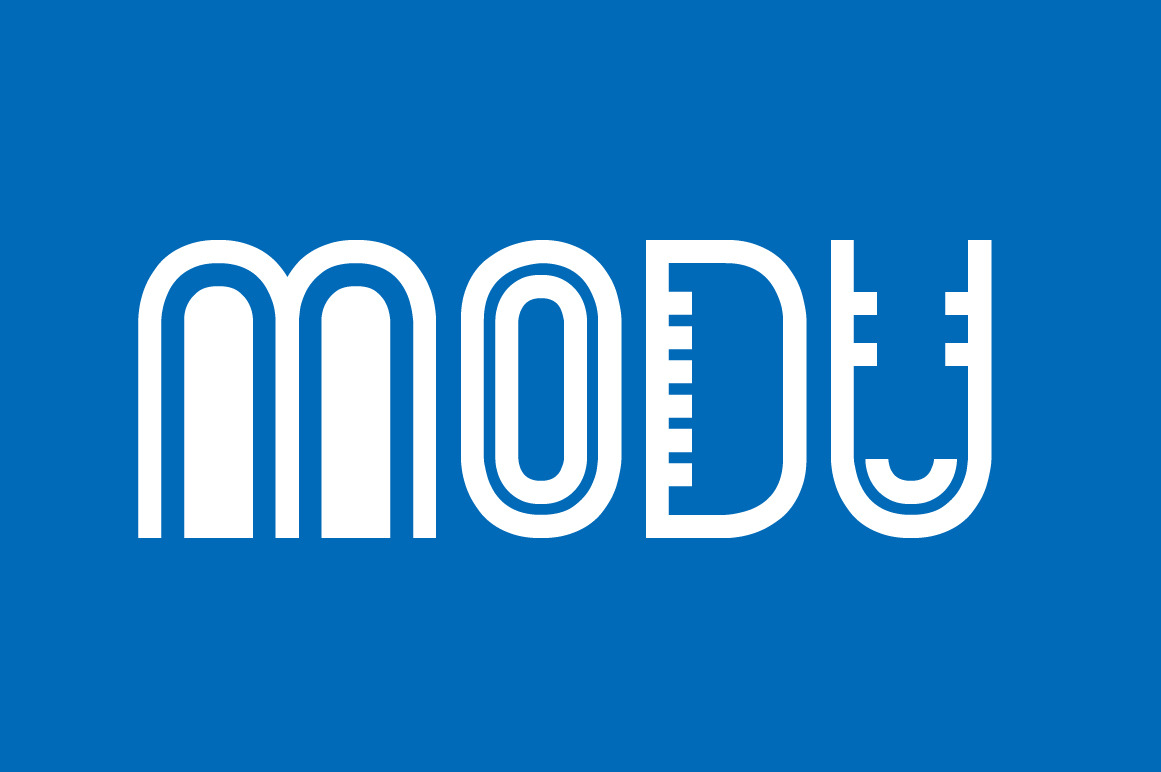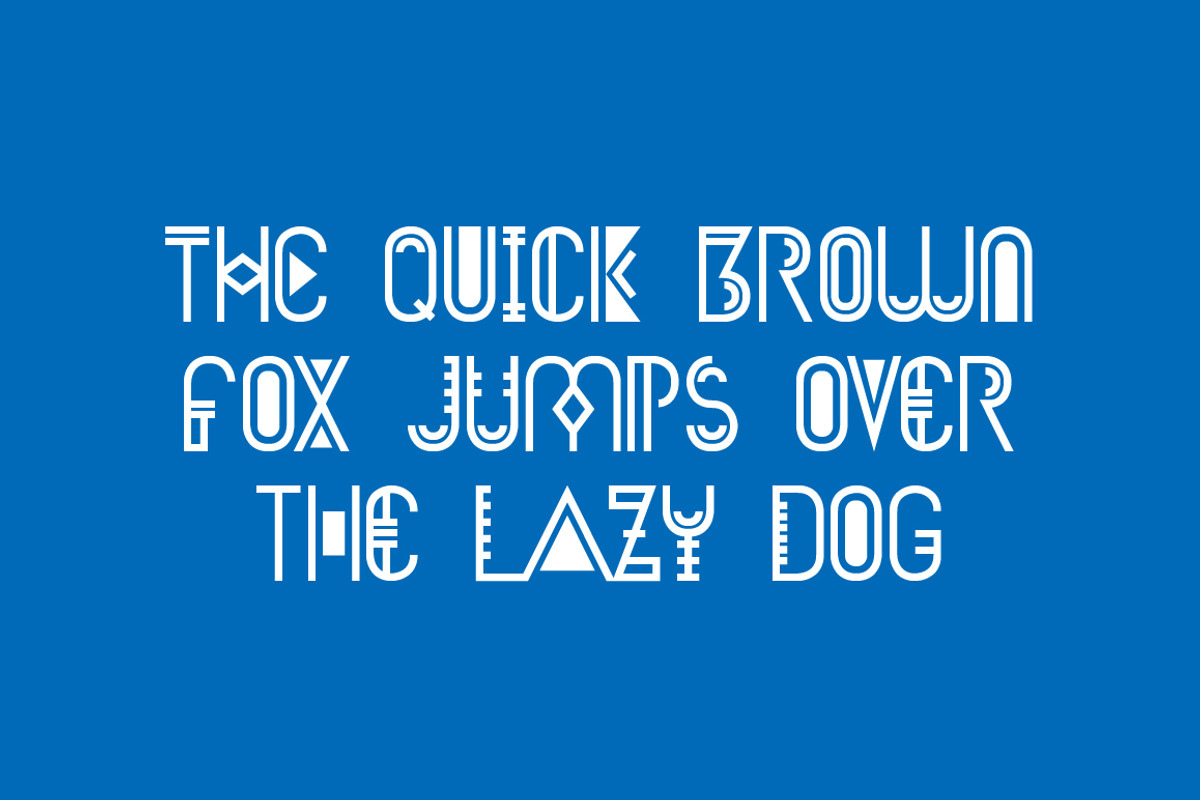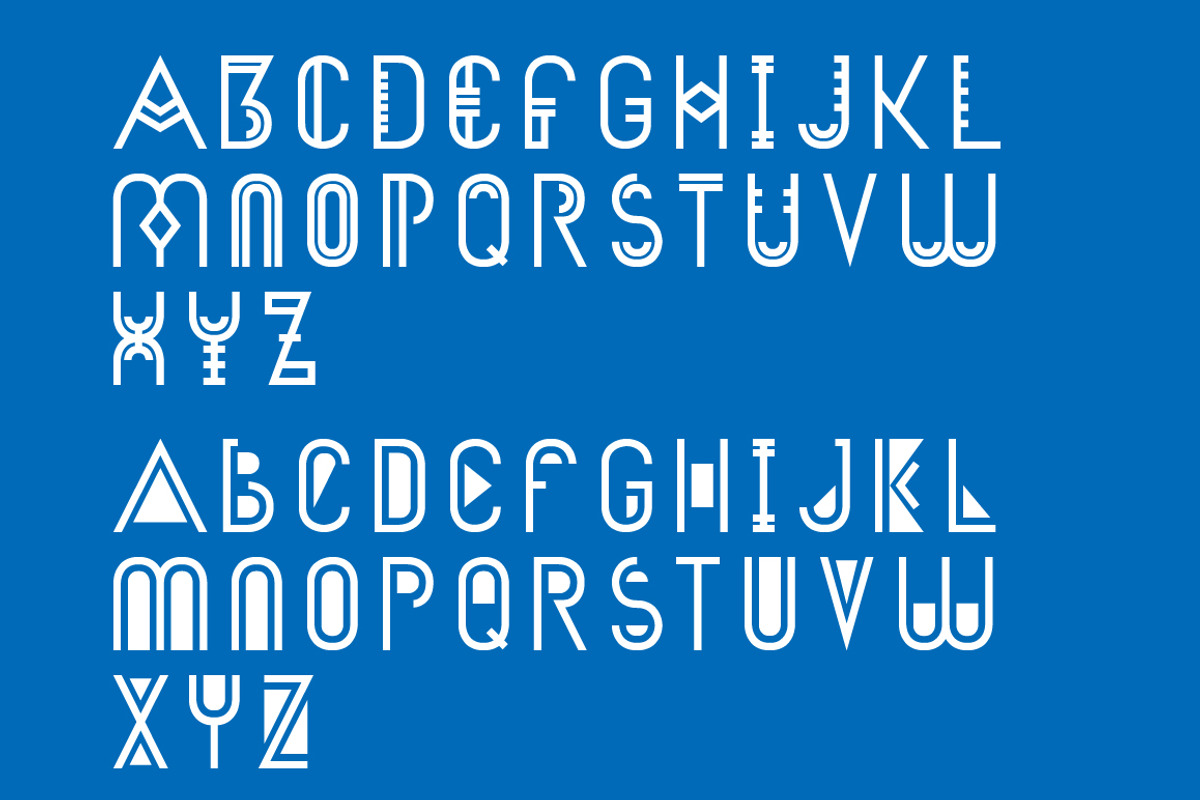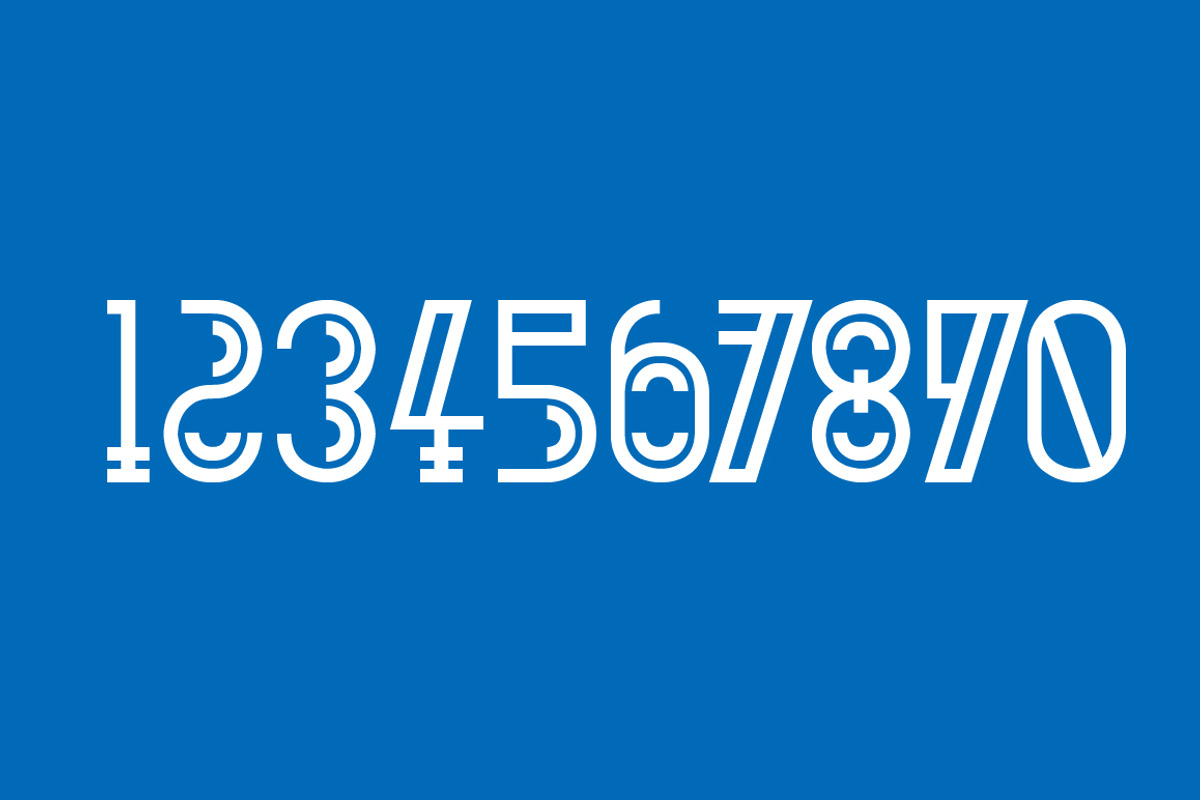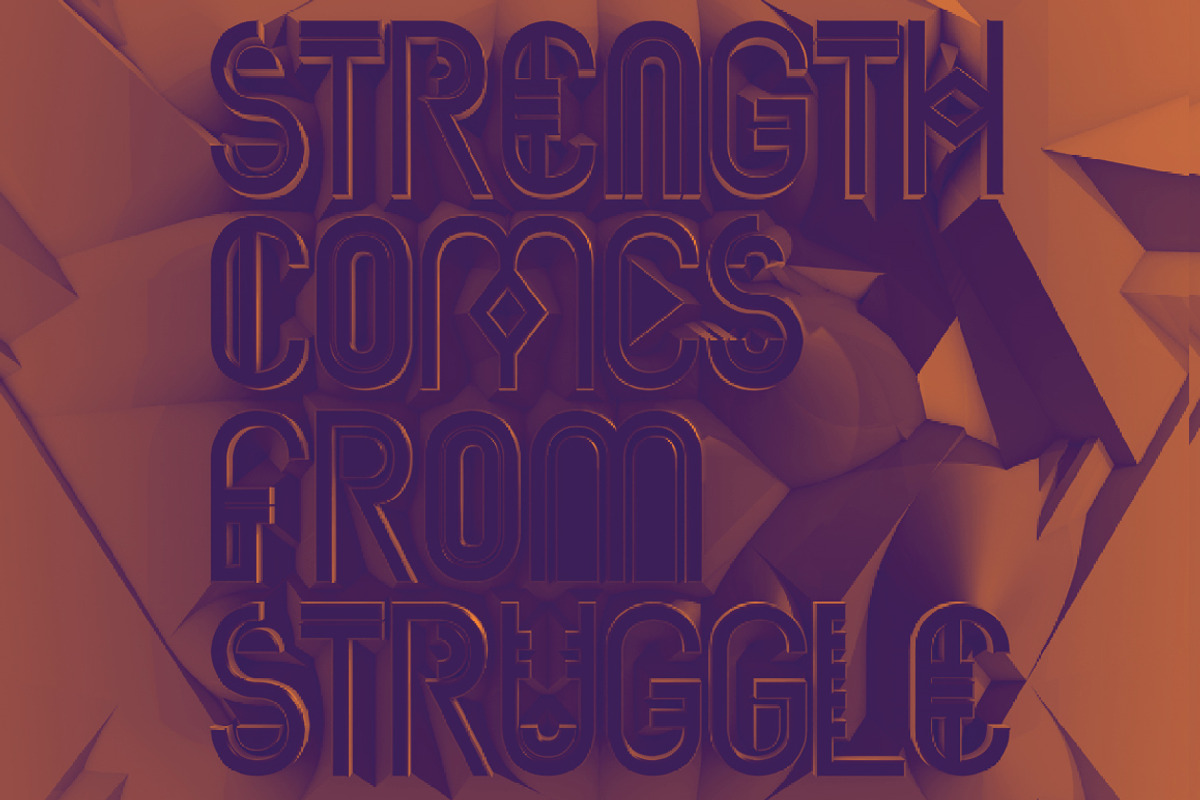
Modu Typeface
Modu Typeface is my latest experimental typeface. Its available in two weights and its best suited for posters,logos and motion graphics. See the presentation here:https://www.behance.net/gallery/8979821/Modu-Typeface